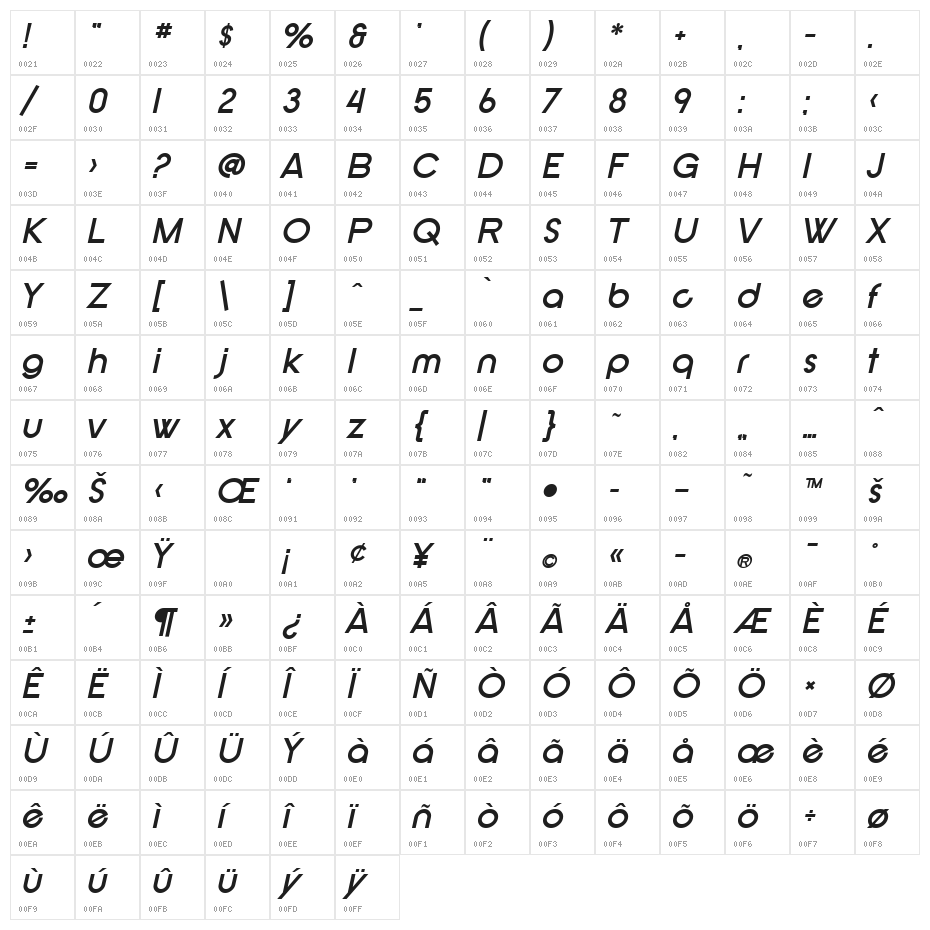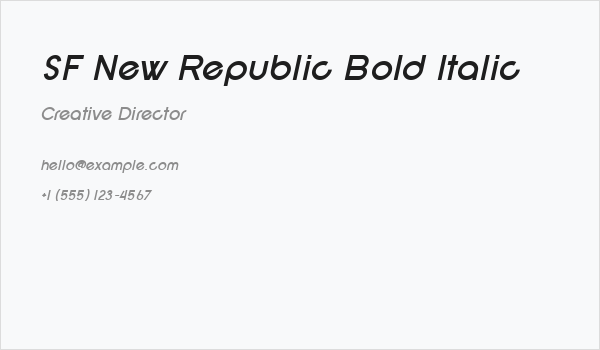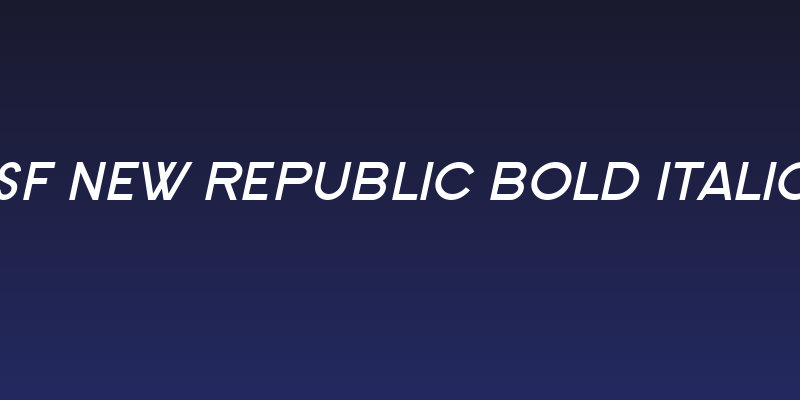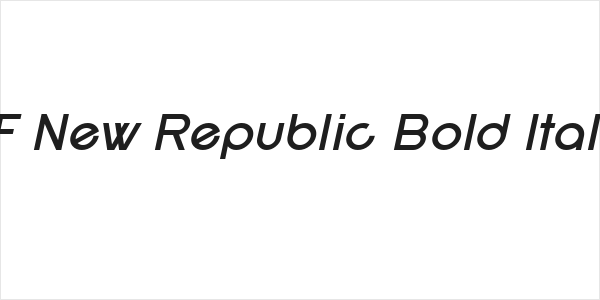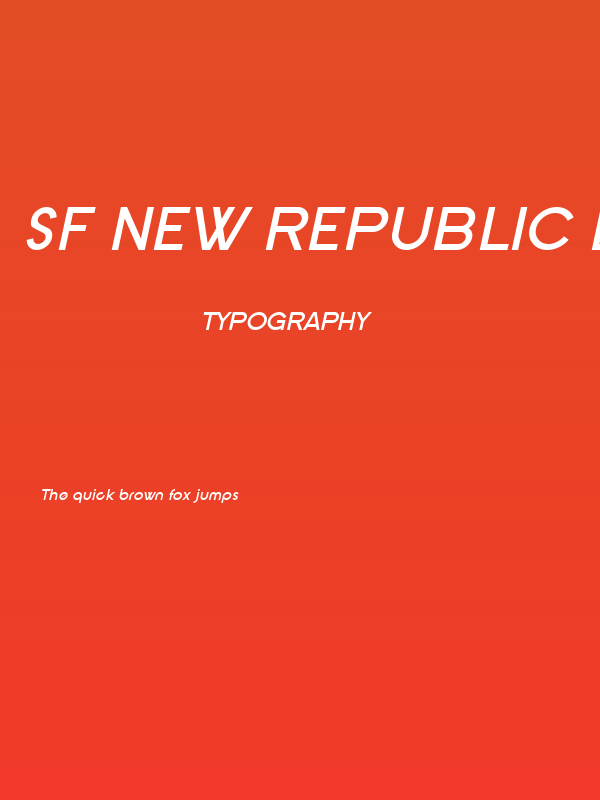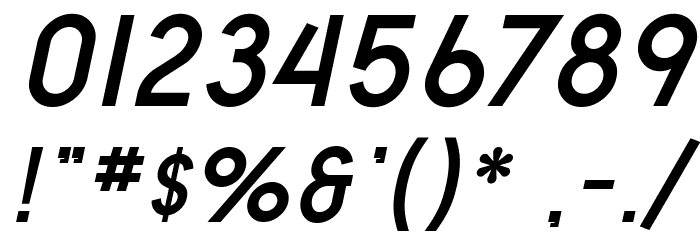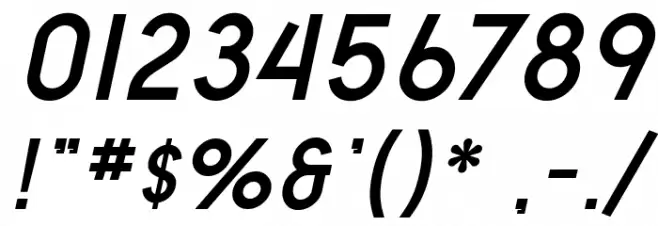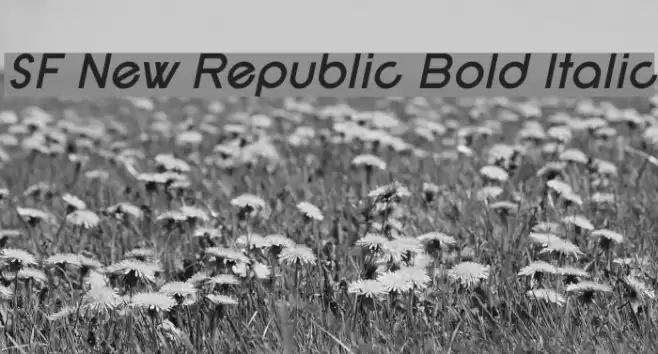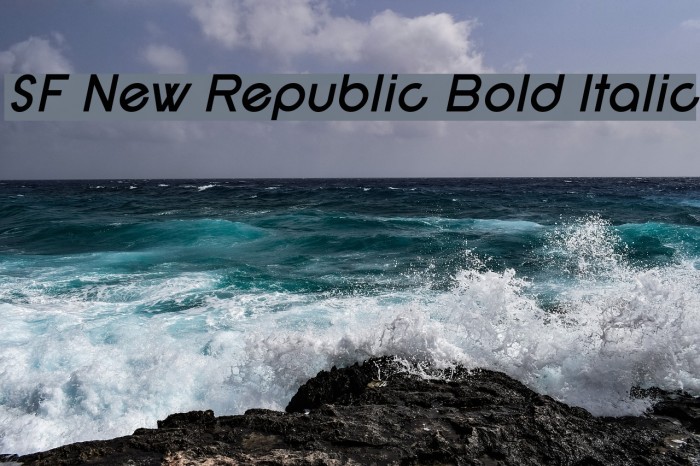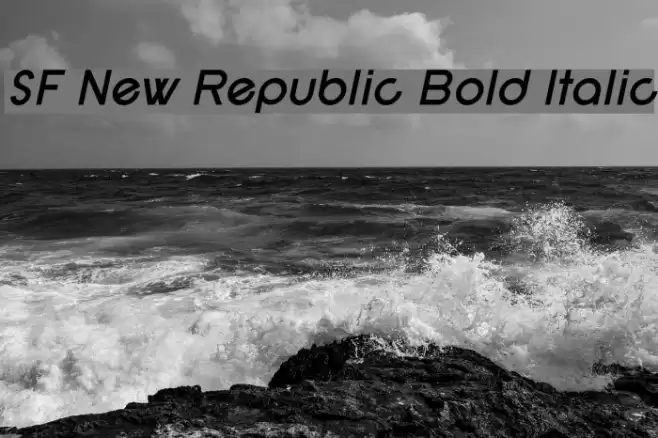
SF New Republic Bold Italic Font
✎ Sans Serif
SF New Republic Bold Italic Description
This font features a bold and italic style, characterized by its slanted and dynamic appearance. The letters are well-defined with a modern flair, offering a sleek and professional look. The uppercase and lowercase letters maintain a consistent style, with smooth curves and clean lines. The numerals are distinct and easy to read, complementing the overall design. Special characters are included, providing versatility for various uses. The font's boldness and italic slant make it suitable for attention-grabbing headlines and impactful designs.
| Use Case | Headlines, Logos, Branding |
| Proposed Projects | Ideal for branding, advertising, headlines, and editorial design projects. |